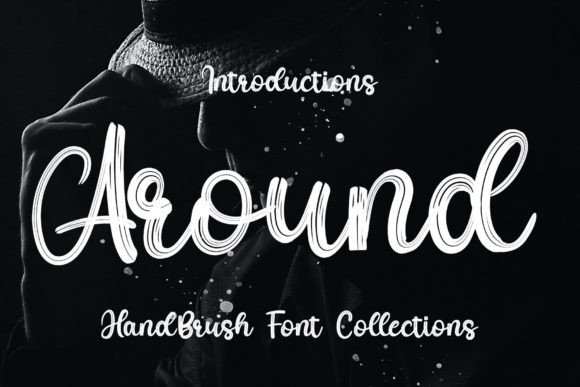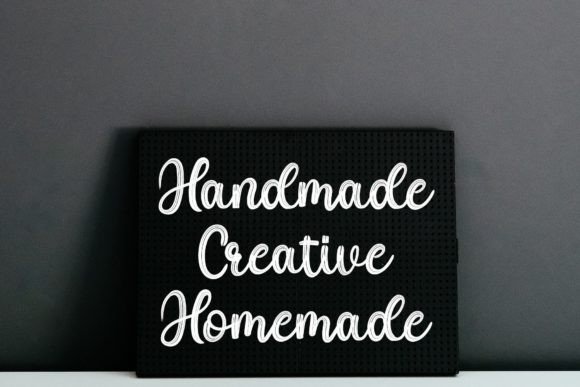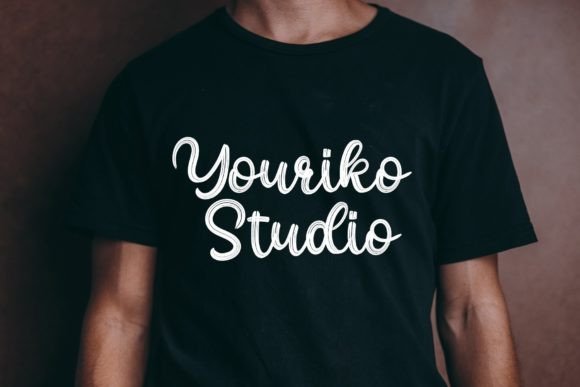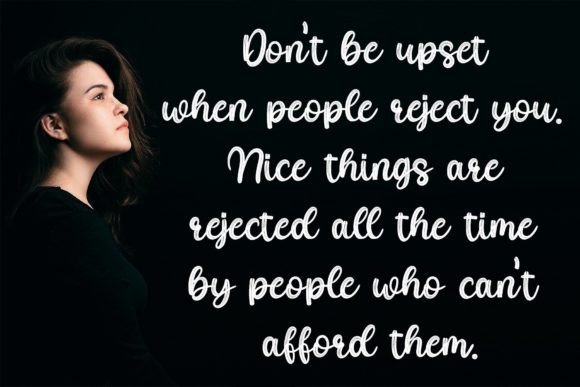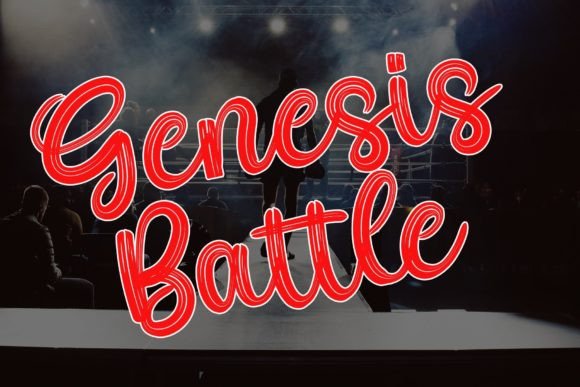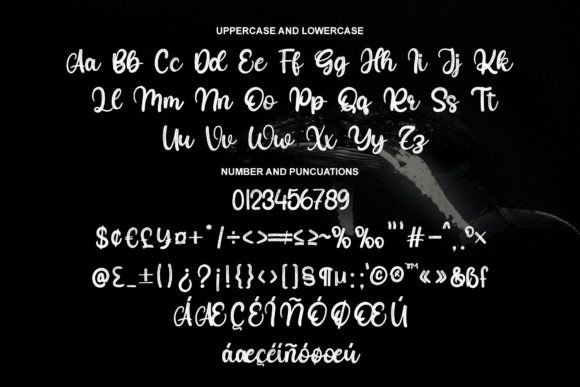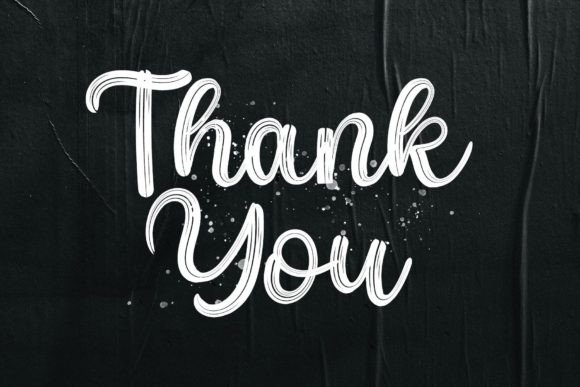
Around Font
About Around Font
“Around” is introduced as a handwritten brush script font designed to emulate the appearance of writing on a marker board. The description suggests that this font is particularly well-suited for applications such as greeting cards, invitations, and motivational quotes, with the intention of helping users express their messages effectively.
The use of the term “handwritten brush script” implies that “Around” carries the characteristics of both a brush script and handwritten style. Brush scripts often have a bold and dynamic appearance, while the handwritten aspect adds a touch of personalization and warmth to the font.
The specific reference to a marker board suggests a casual and informal style, making “Around” suitable for a range of creative projects where a relaxed and approachable look is desired.
The mention of suitability for greeting cards, invitations, and motivational quotes indicates that “Around” is versatile and can be applied in various contexts. Fonts that work well for these applications often have a friendly and expressive quality.
In summary, “Around” is presented as a handwritten brush script font with the unique characteristic of resembling writing on a marker board. Its versatility makes it a potentially useful tool for designers looking to convey messages in a casual yet expressive manner, particularly in applications such as greeting cards, invitations, and motivational quotes.